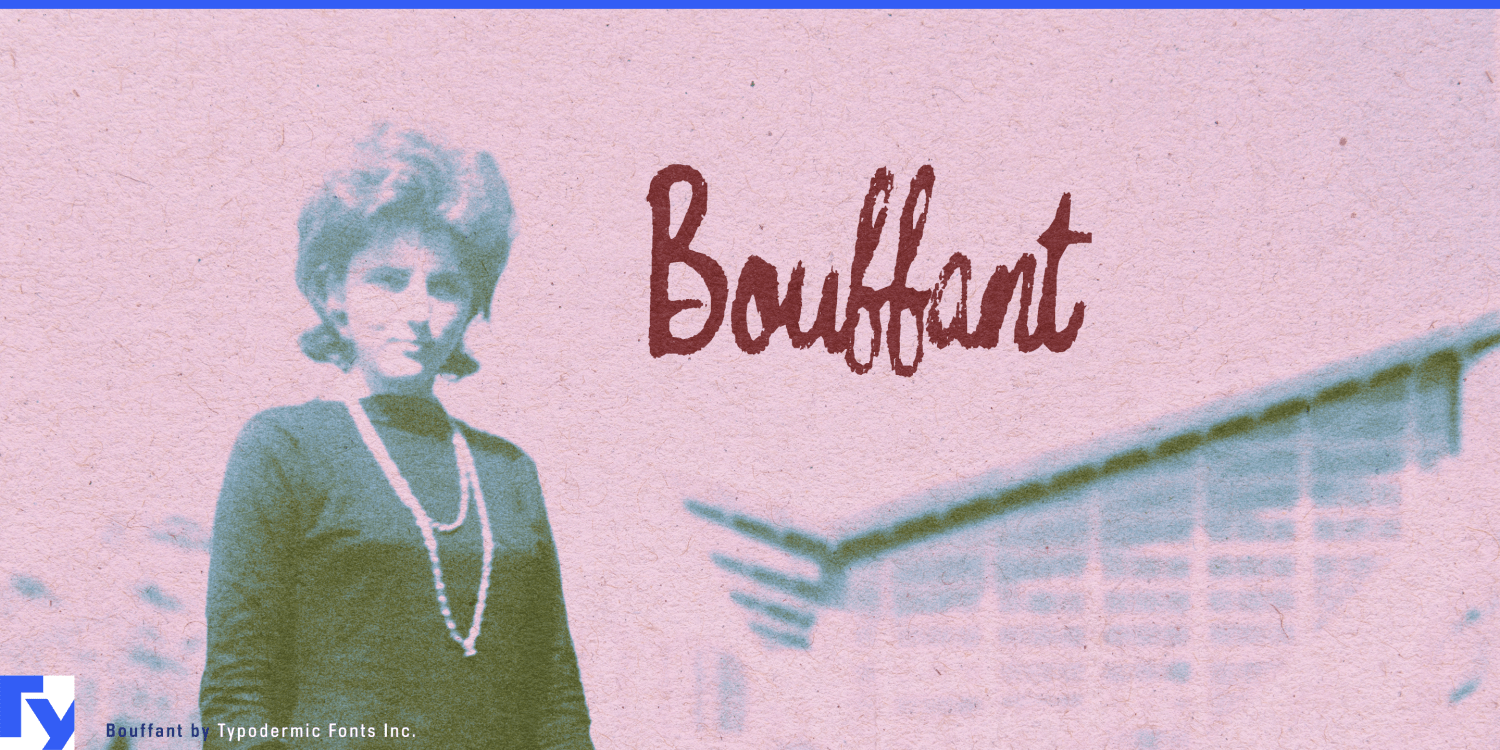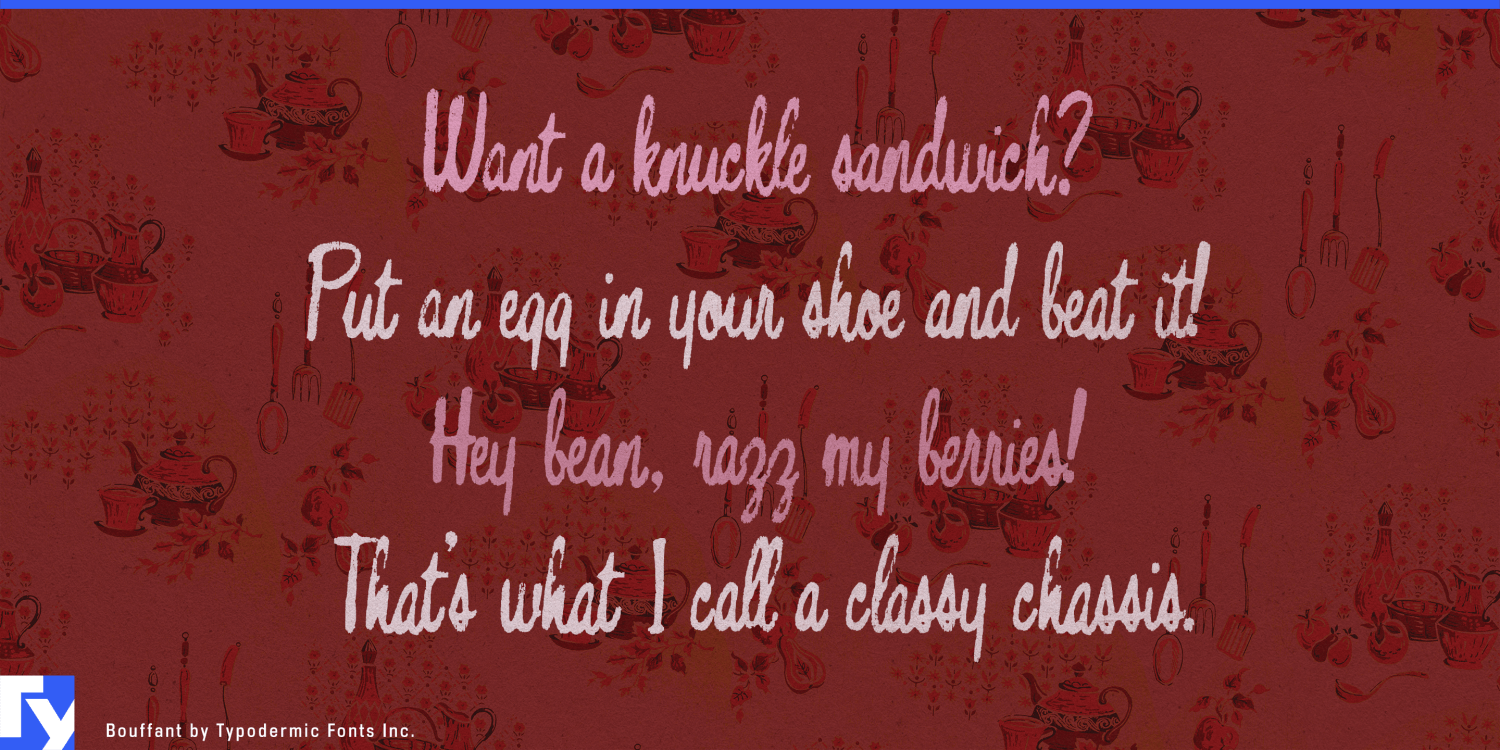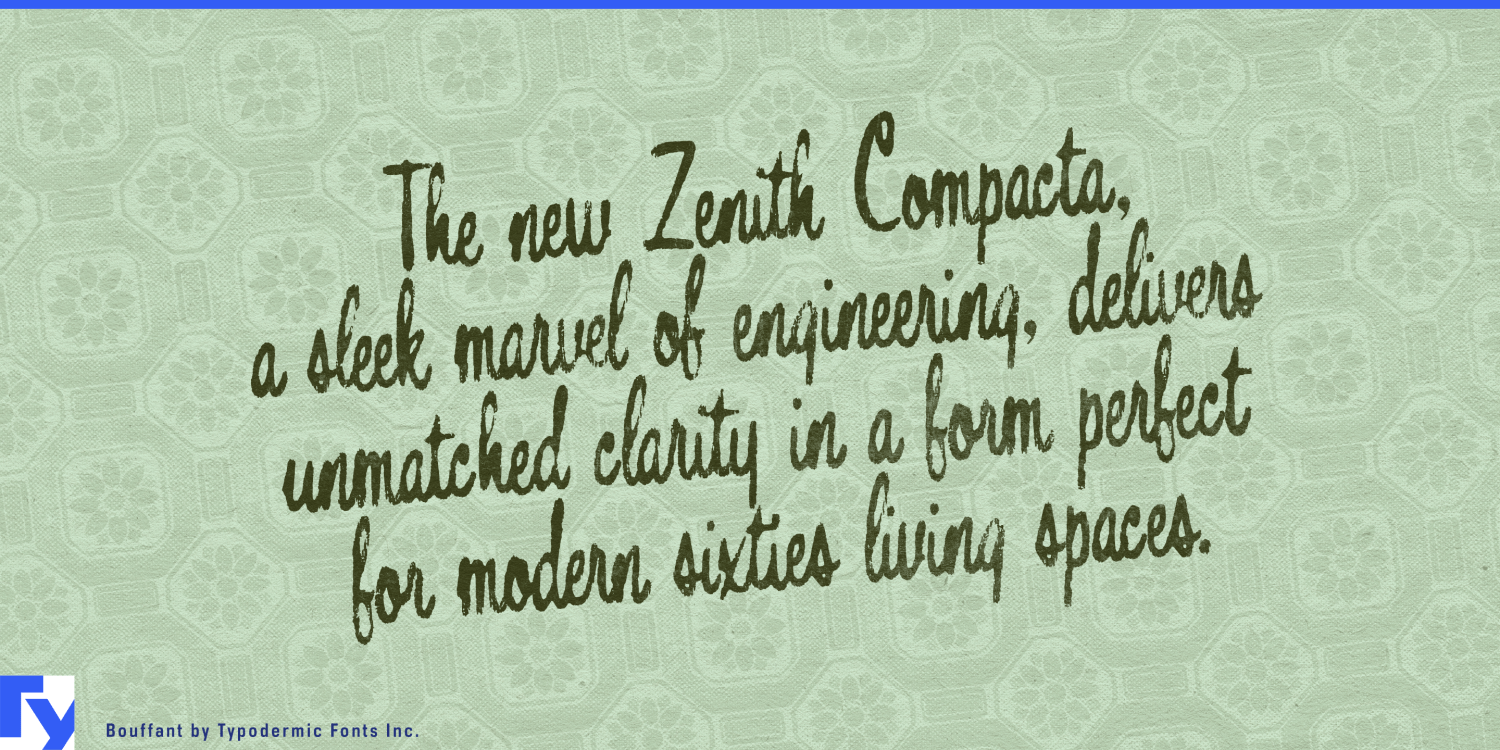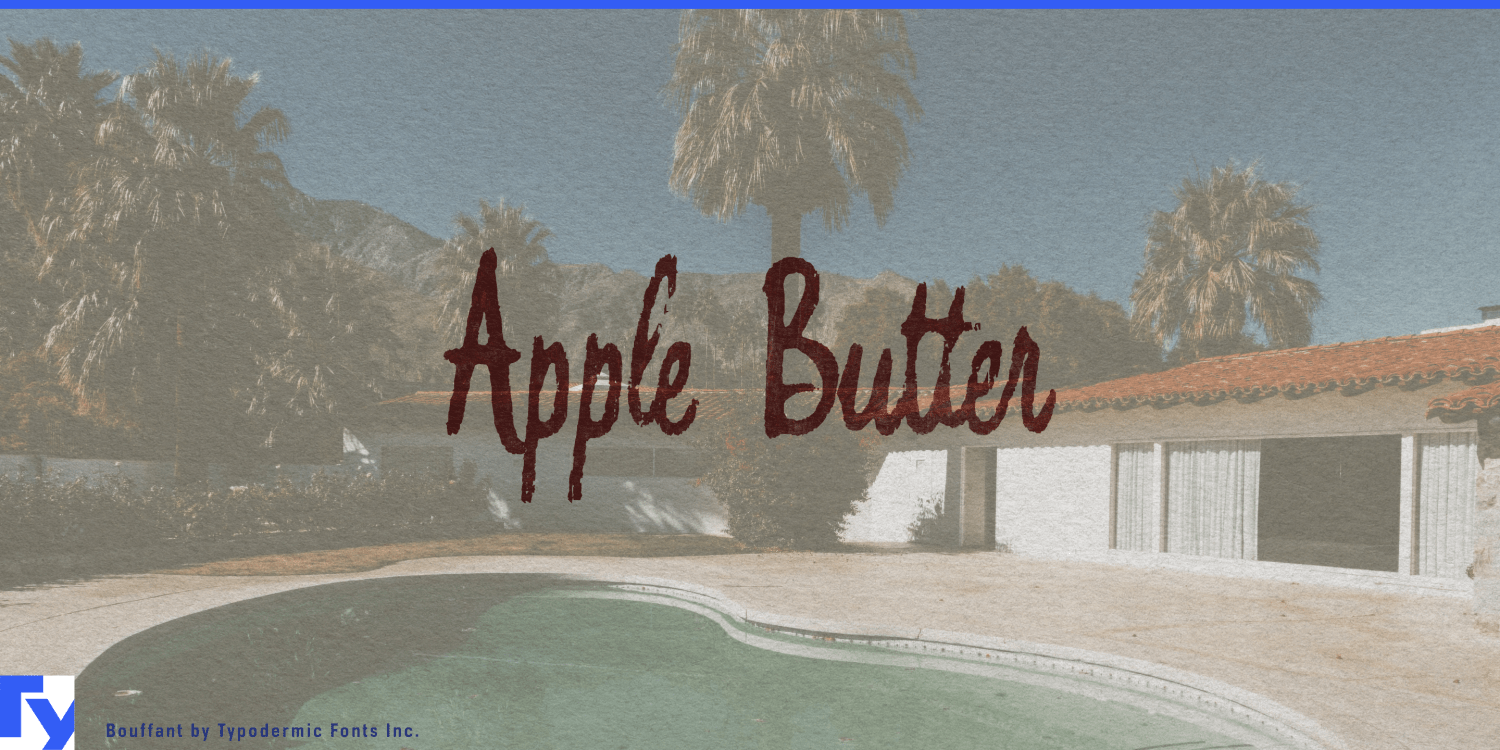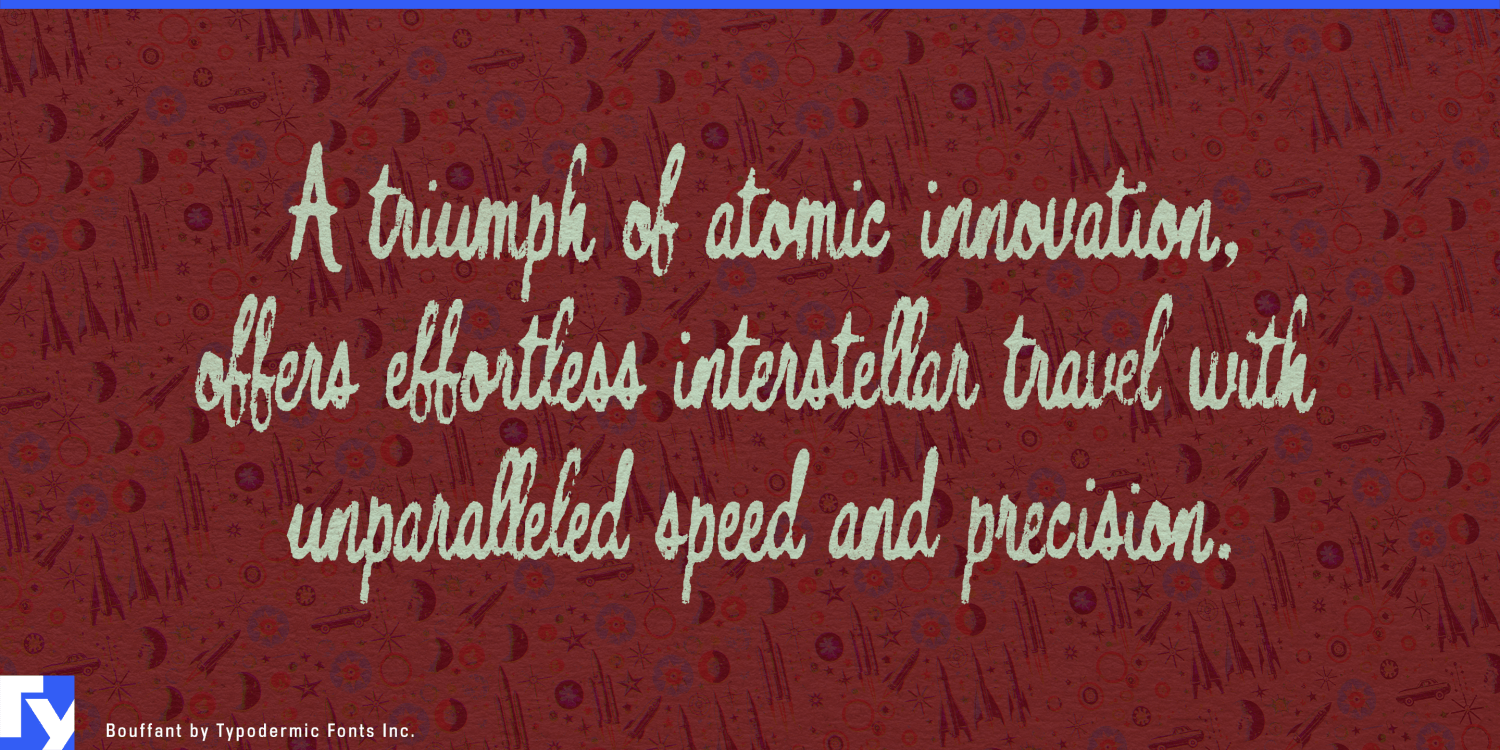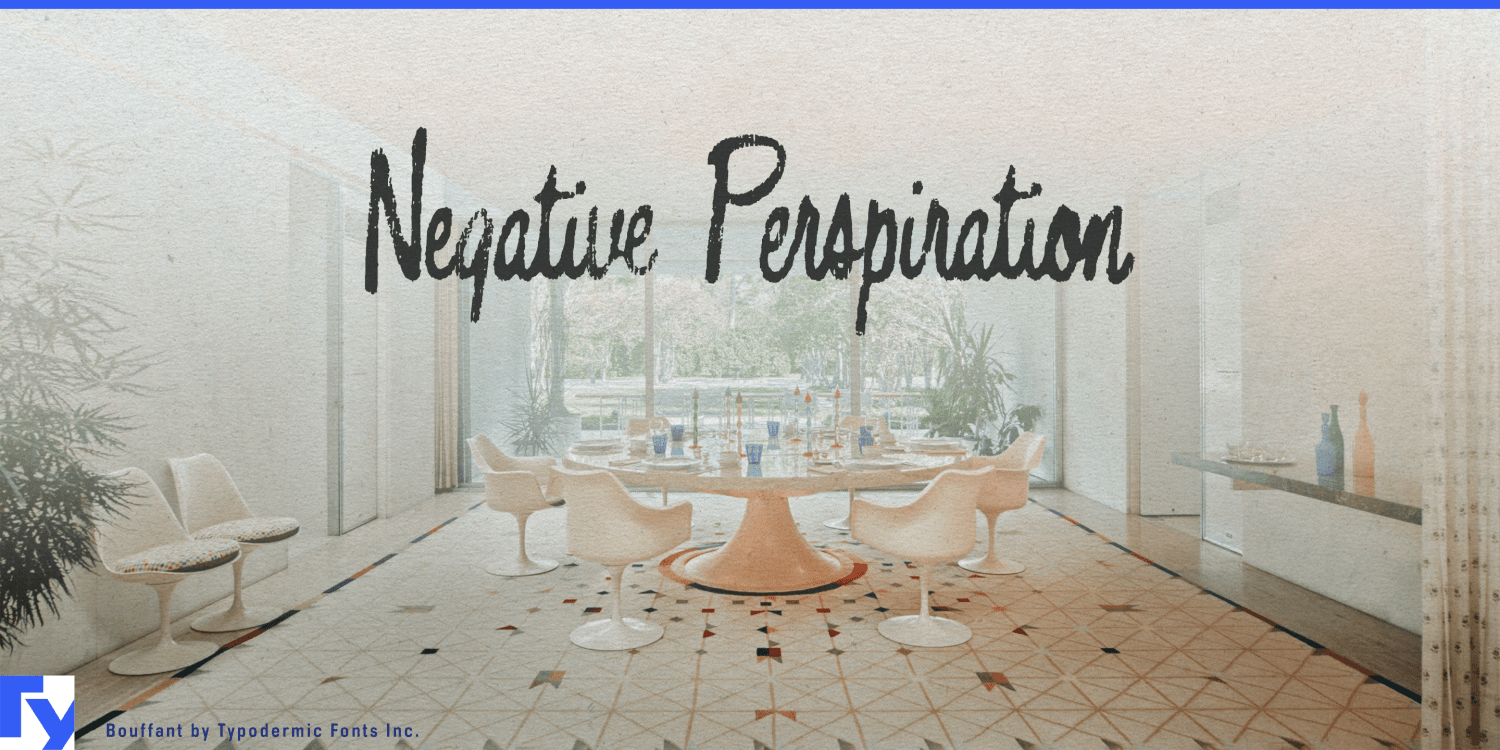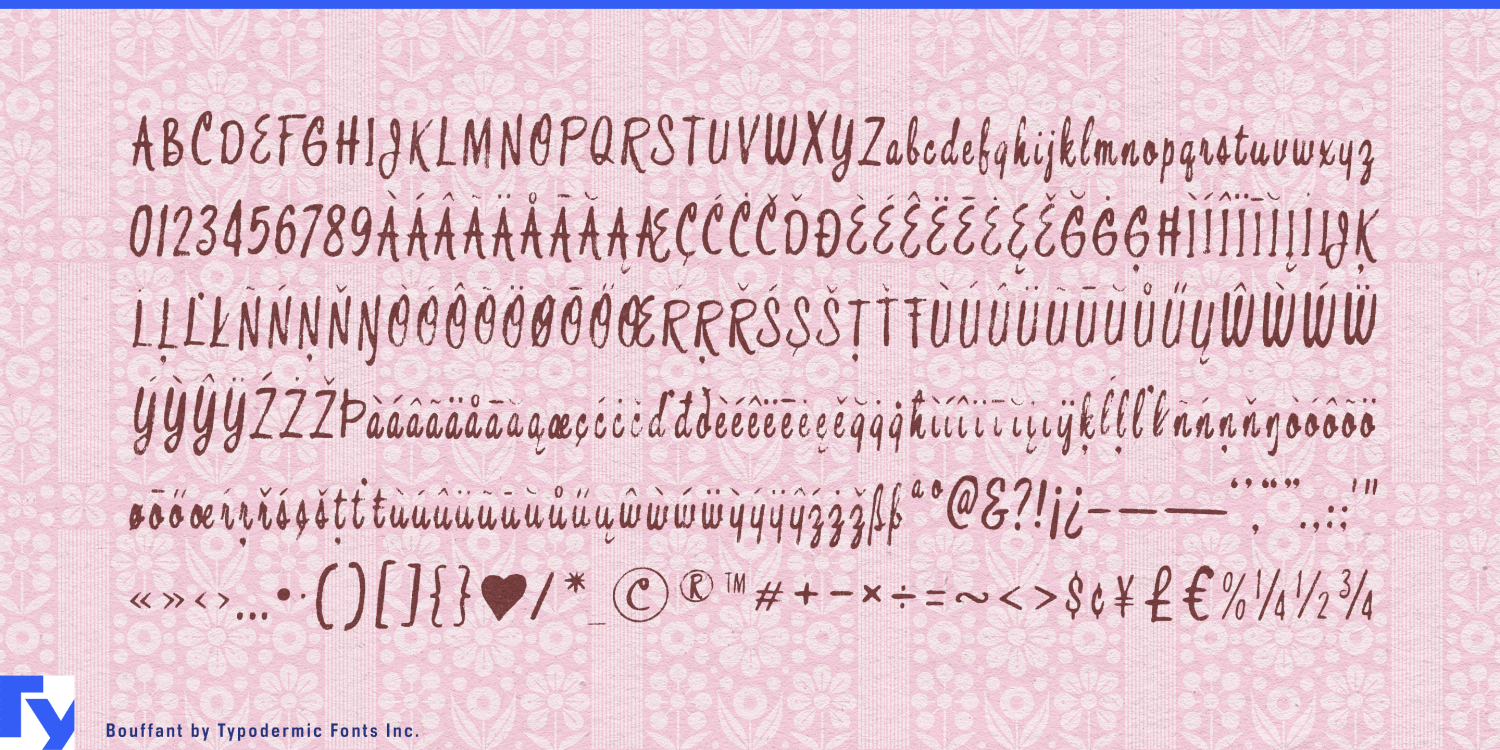
Bouffant
Mid-century lettering is easy to restore too well. Clean curves and polished vectors can reproduce the style of an old sign while losing the thing that made the original object convincing: years of handling, sunlight, weather, and imperfect reproduction. Bouffant keeps some of that history on the surface.
Its compact script grew from an old sign-painter’s guide that had survived through a crude scan and automatic tracing. The missing and damaged forms were rebuilt rather than simply cleaned up, preserving the curls and commercial rhythm while allowing the lettering to remain visibly worn. Pair substitutions help common combinations flow more naturally and reduce obvious repetition.
That makes Bouffant especially useful for period production design. Films, games, exhibitions, and television series set in the 1950s or early 1960s need the everyday commercial layer as much as the iconic neon sign: bakery boxes, supermarket jars, motel brochures, diner condiment bottles, beauty-salon windows, recipe cards, poolside notices, and appliance decals. Bouffant can make those objects look as though they have already been around for a while.
The same quality suits nostalgic pantry ranges and retro housewares. Apple butter, pie filling, bottled syrup, pancake mix, canned fruit, recipe boxes, enamel canisters, aprons, and tea towels can use Bouffant as the decorative handwritten layer while cleaner typography handles practical information. Restored motor lodges, diners, drive-ins, bowling alleys, and roadside attractions can carry it across signs, menus, postcards, souvenir shirts, and merchandise.
Bouffant is strongest when mid-century commercial lettering needs to look as though it survived rather than being freshly reconstructed. Its curls establish the period; the worn surface makes the object feel used, handled, sun-faded, and already part of somebody’s past.